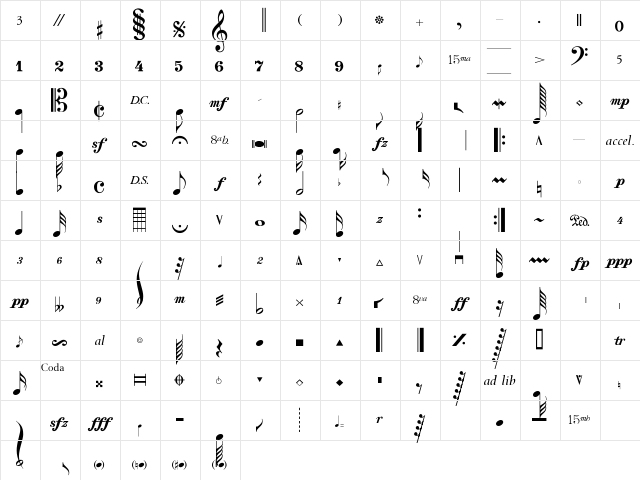
Mozart normal Font Preview
Mozart normal
Design Context for Mozart Typeface
Mozart is a composed and adaptable typeface that performs quietly and consistently across a wide range of design contexts.